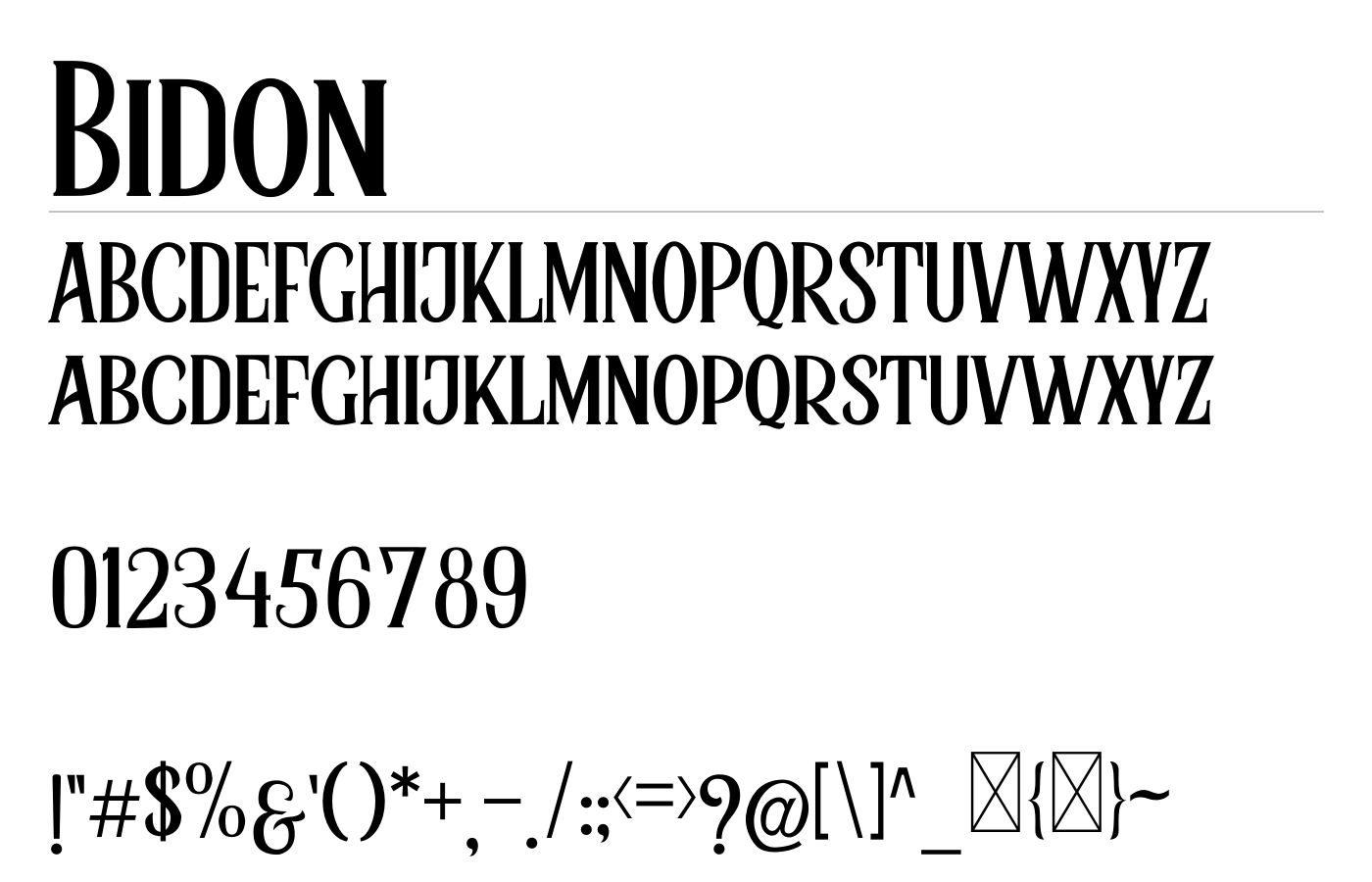
Bidon is a narrow serif font with a strong, elegant presence characterized by high contrast between thick and thin strokes and distinctive sharp, bracketed serifs. Its tall, condensed letterforms with unique details like the curved terminals and stylized numbers make it ideal for impactful headlines, luxury branding, and editorial design where sophistication and a vintage-modern blend are desired. This font works particularly well in fashion, high-end packaging, and display use where a refined, striking impression is important.
Bidon Font
About Bidon Font